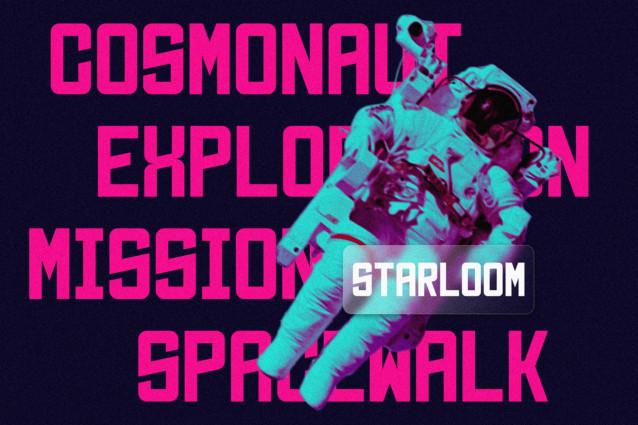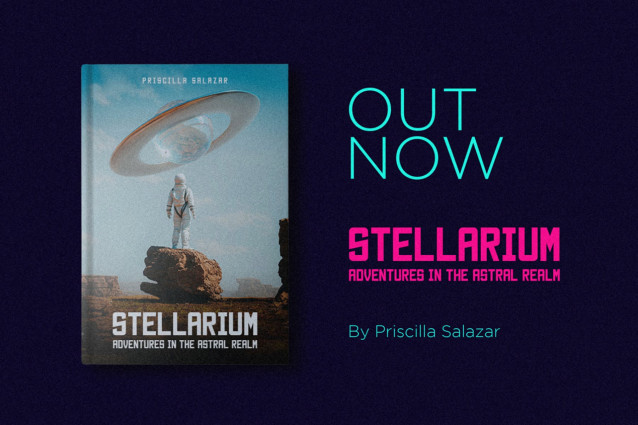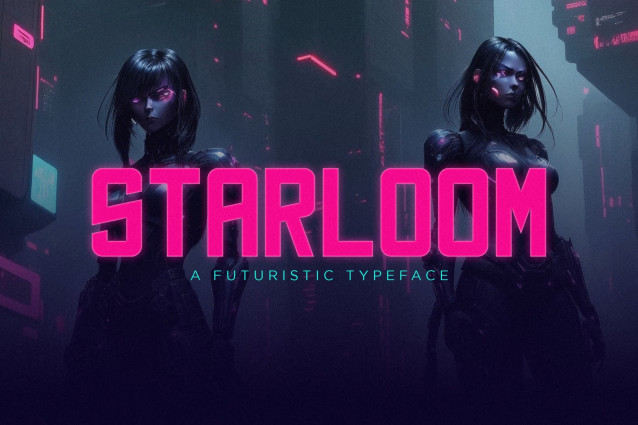
Starloom Futuristic Typeface Font
Starloom is a futuristic display font inspired by space exploration, cyberpunk aesthetics, and advanced technology. With bold geometric shapes and a strong sci-fi presence, Starloom is perfect for gaming, movie titles, technology branding, posters, book covers, and futuristic designs. Includes uppercase letters, numbers, and punctuation.